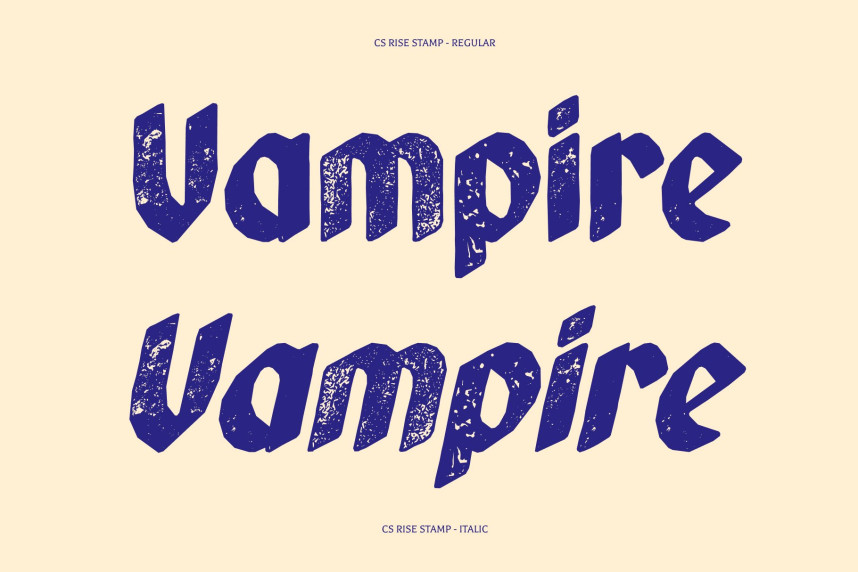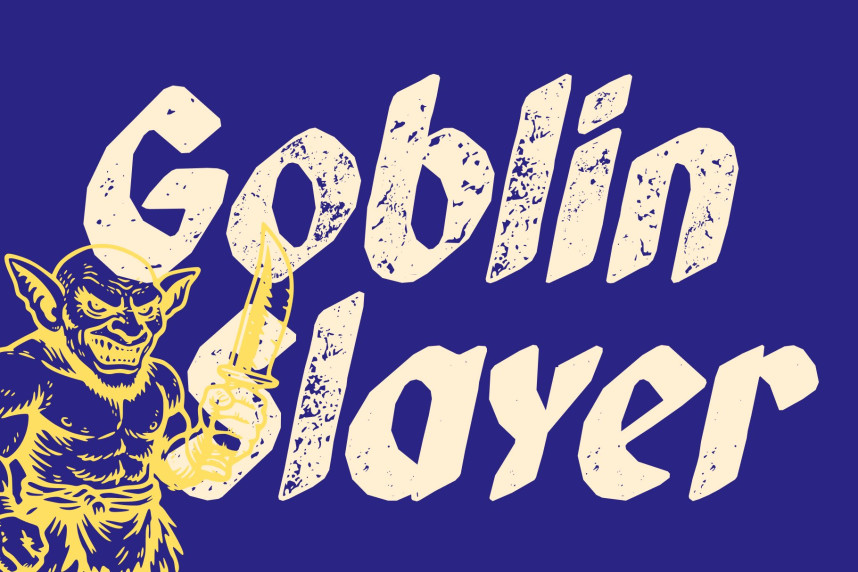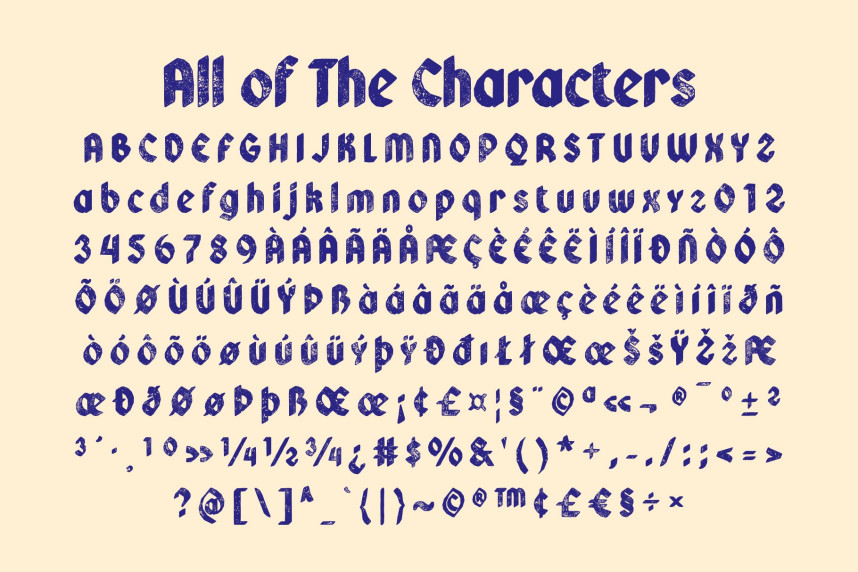
CS Rise Stamp Font
CS Rise Stamp Font – Bold Blackletter Display Font: Where Historic Elegance Meets Vintage Stamp Texture
Traditional Blackletter with Soft Contemporary Character
This is a bold display font that reimagines classic blackletter typography through a modern lens. Combining the sharp elegance of traditional blackletter with rounded, softer edges, it creates a distinctive visual identity that balances historical charm with contemporary appeal. Its bold letterforms command attention while remaining approachable, making it perfect for expressive display typography.